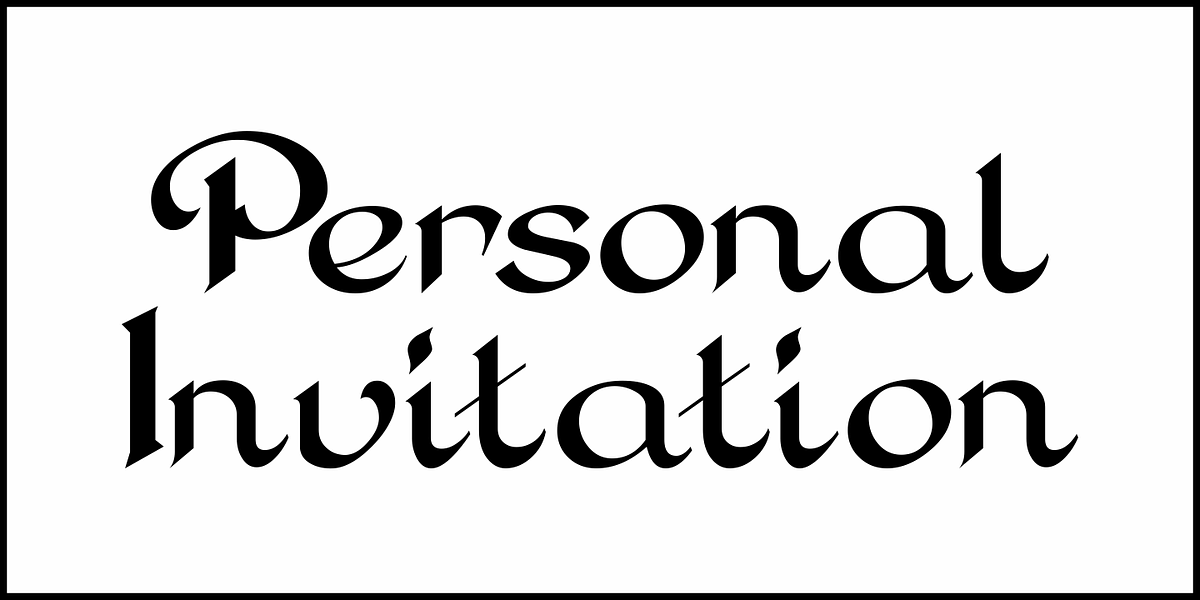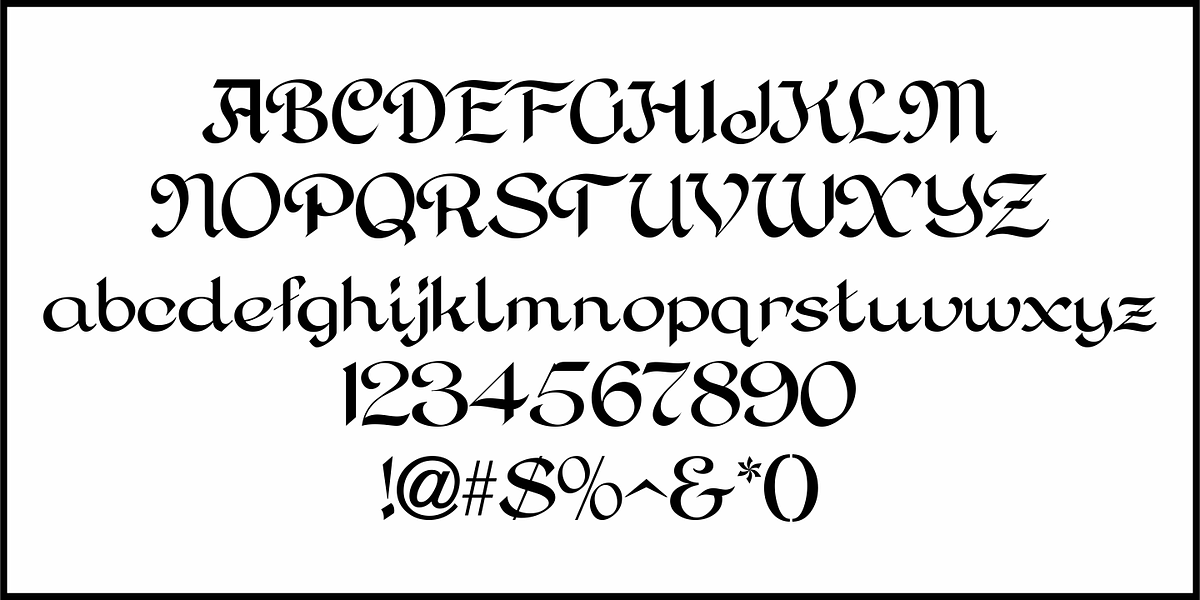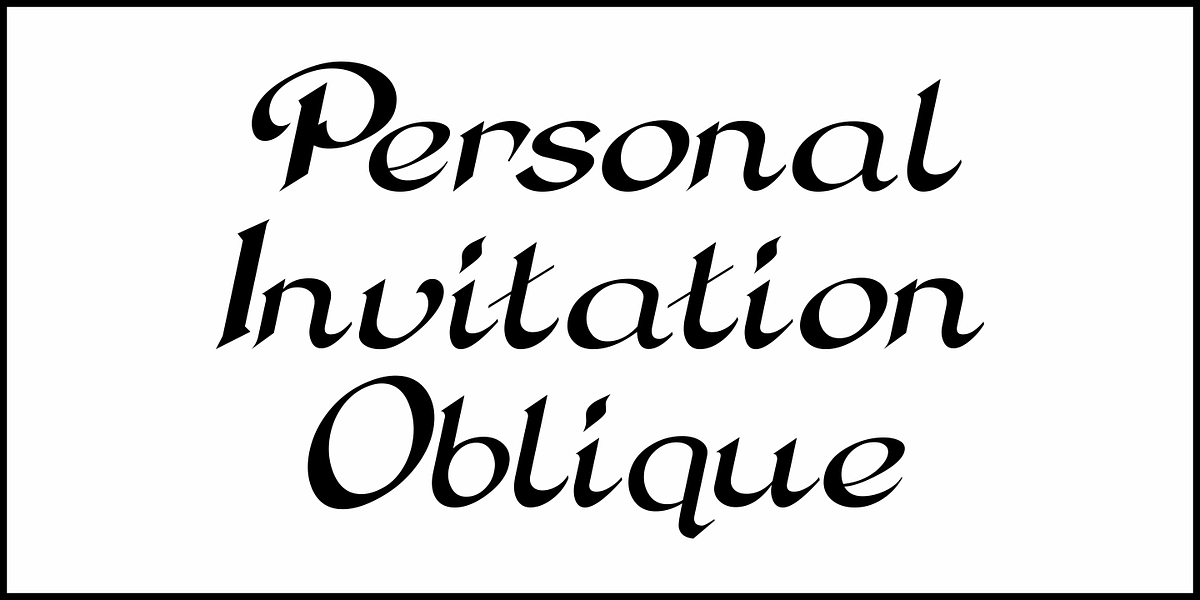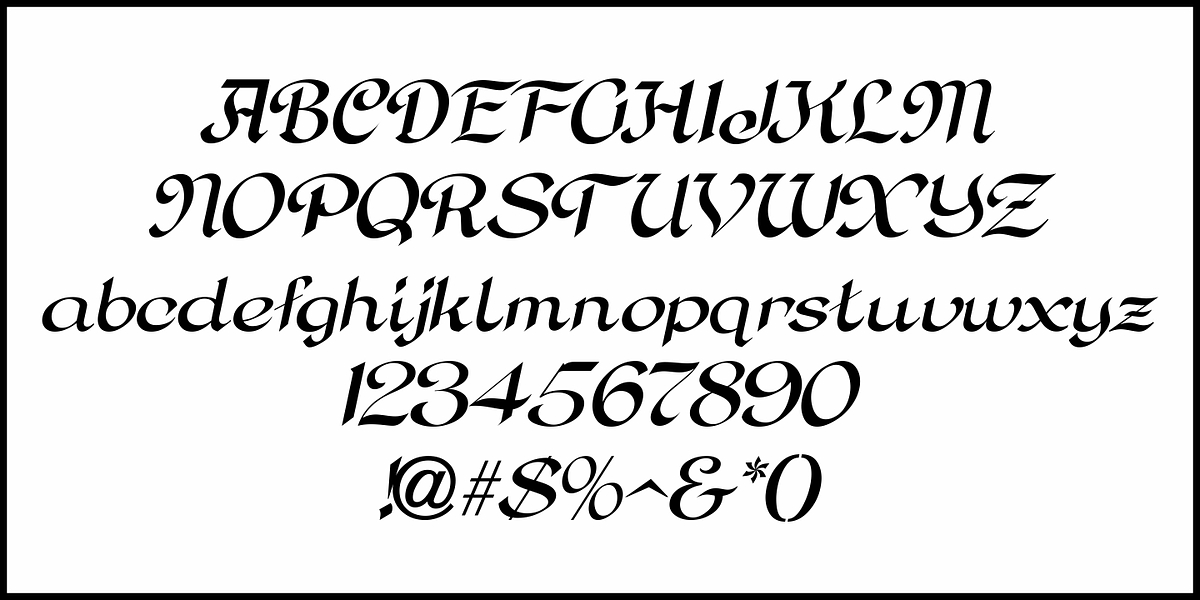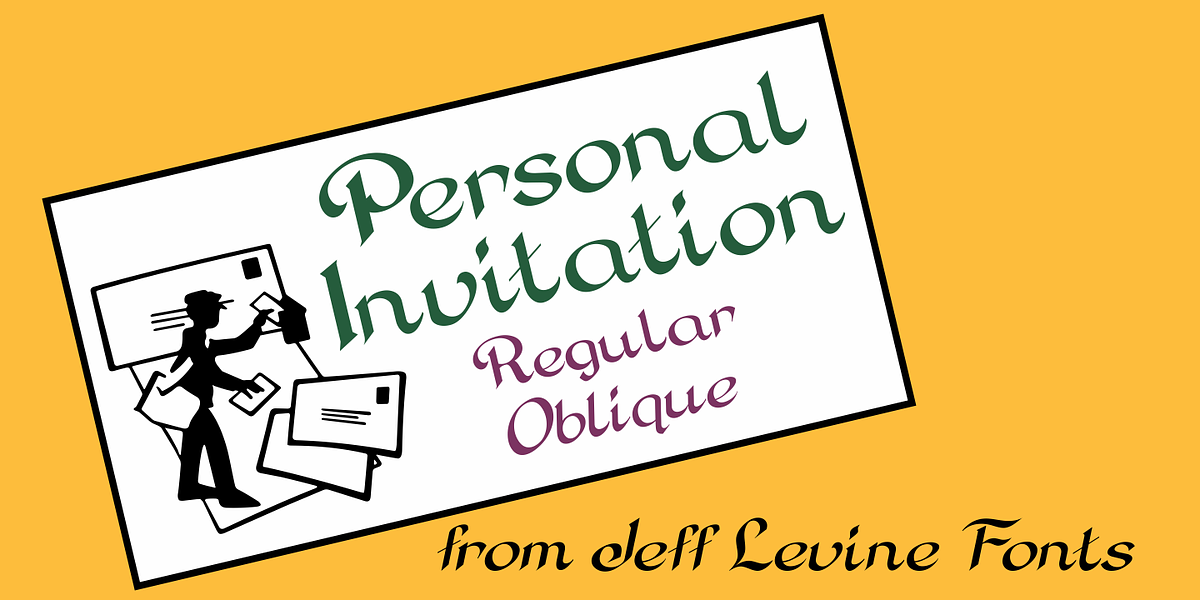
Personal Invitation JNL
One of the lettering examples in the 1913 book “Instructions on Modern Show Writing” is a delightful calligraphic alphabet that’s perfect for everything from show cards to invitational notes to names on certificates.
It has been digitally redrawn as Personal Invitation JNL, and is available in both regular and oblique versions.